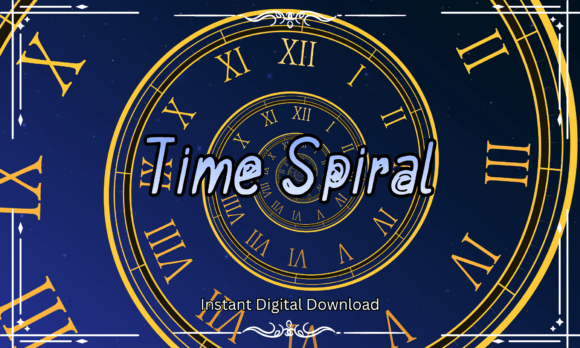
Time Spiral Font: A Futuristic Handwritten Display Typeface for Crafters
If you've ever held a candle with a swirling, dimensional label that made customers pause mid-browse—or watched your wedding welcome sign stop guests in their tracks—you know how much weight the right font carries. Time Spiral isn’t just another decorative typeface. It’s a bold, futuristic handwritten display font built for makers who need personality *and* precision—especially when it comes to physical products.
Visually, Time Spiral feels like stepping through a cosmic portal: fluid loops, dynamic ascenders and descenders, subtle tapering strokes, and a gentle rhythm that suggests motion without sacrificing legibility. It’s playful but never childish, experimental but grounded enough for real-world use. Unlike many expressive scripts that blur at small sizes or choke on cutting machines, Time Spiral was designed with craft production in mind—its letterforms have generous spacing, clear entry/exit points, and confident stroke contrast that holds up beautifully on stickers, tags, and engraved wood signs.
For printable creators and Etsy sellers, Time Spiral shines brightest as a display font—not for paragraphs, but for moments that need to land: product names on boutique packaging, titles on planner covers, headlines in digital downloads, or “Welcome” on a farmhouse-style chalkboard sign. I’ve used it for soy candle labels (paired with a clean sans serif for ingredients), hand-poured soap tags (where its organic flow echoes artisanal craftsmanship), and even laser-cut acrylic wedding place cards—each time, customers commented on how “intentional” and “thoughtfully designed” the typography felt.
It works especially well for seasonal and thematic collections. Think: “New Beginnings” on spring planner pages, “Countdown to Summer” on beach-themed SVG files, or “Forever & Always” on minimalist wedding invitations. Because Time Spiral leans into its handwritten roots while staying structurally sound, it adds warmth without looking dated—and because it’s futuristic, not sci-fi-cliché, it avoids feeling gimmicky on high-end stationery or modern home goods.
Readability matters—and here’s where Time Spiral stands out. At 24pt and above, it’s crisp and engaging on printed cards and large-format wall art. On Cricut and Silhouette machines, it cuts cleanly with minimal weeding thanks to open counters and uncluttered joins. For smaller applications—like ⅜”-tall sticker text or mini gift tags—I recommend using only short phrases (“Joy,” “Hello,” “Made With Love”) and avoiding tight kerning adjustments. Always test-cut at your final size first; the font’s natural flow means some letters (like “g,” “y,” and “Q”) extend further than others, so give them breathing room.
Font pairing is where Time Spiral truly becomes versatile. Try it with a warm, neutral sans serif like Montserrat or Poppins for product labels—Time Spiral handles the brand voice, while the sans serif delivers clarity for details. For wedding stationery, pair it with a delicate serif like Playfair Display or Cormorant Garamond to balance elegance and energy. And if you’re designing social media graphics or mockups for digital printables, layer Time Spiral over soft watercolor textures or subtle grid lines—it holds its own without overwhelming.
In my own shop, Time Spiral has become my go-to for anything that needs to feel both personal and polished—like handmade tea blend labels where “Stardust Chai” looks like it was written just for that jar, or holiday ornament tags where “2024 • Our First Christmas” feels timeless instead of trendy. It doesn’t shout—but it lingers. That quiet confidence translates directly to perceived quality: customers don’t just see a font, they sense intention, care, and creative consistency across your entire product line.
Whether you're designing a single batch of farmer’s market soap labels or building a full seasonal collection of printable wall art, Time Spiral gives your work dimension—not just visually, but emotionally. It invites curiosity without sacrificing clarity, celebrates craft without leaning into cliché, and supports your brand identity without demanding all the attention. In a marketplace where handmade goods compete on feeling as much as function, that kind of thoughtful typography isn’t optional. It’s essential.
So next time you’re choosing a display font—not just for what it says, but for how it makes people *feel*—let Time Spiral do the talking. Your candles, your cards, your signs, and your customers will thank you.